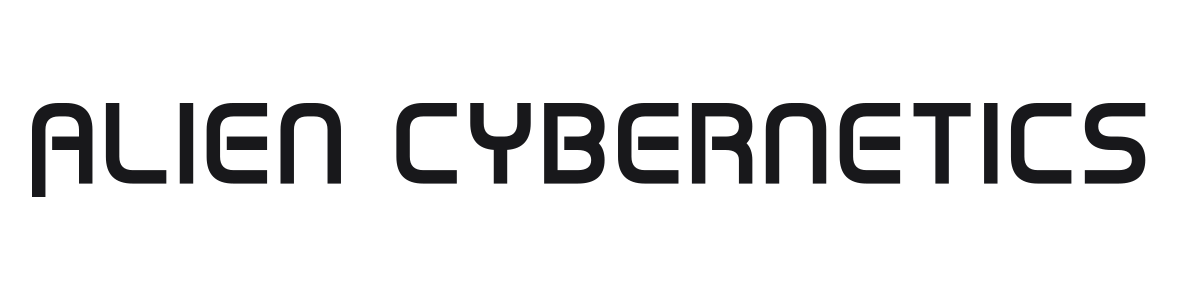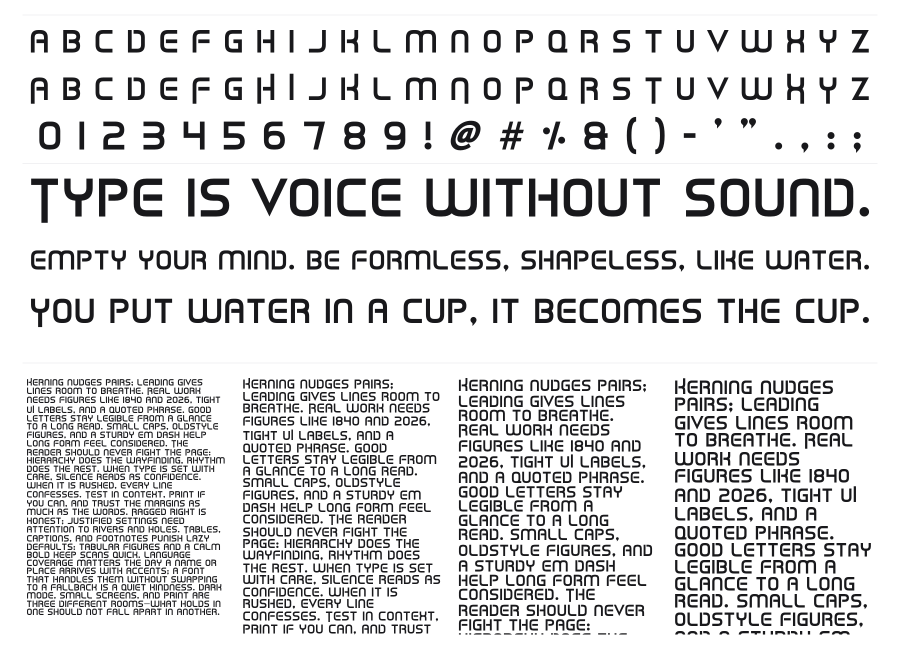
Alien Cybernetics
Alien Cybernetics is a wide geometric sans with clipped inner corners and a modular, engineered structure that reads unmistakably sci-fi. The near-monoweight strokes and restrained detailing keep it legible while maintaining that cold, technical edge. It works well in gaming interfaces, film titles, and any context that needs to feel like it came from the future.